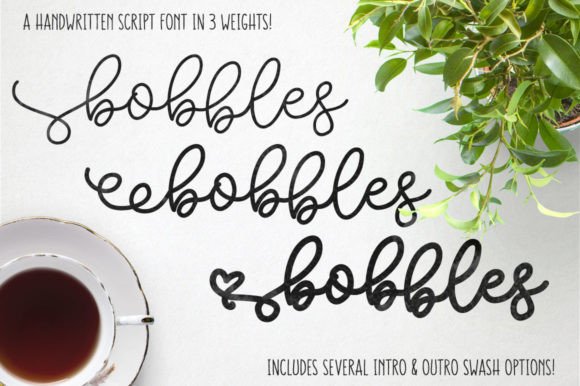
The Bobbles Font: A Beautiful Handwritten Script for Your Creative Projects
As a designer, I’m always on the lookout for the perfect font to bring my projects to life. Recently, I found myself working on a whimsical craft project, searching for a font that would add a touch of playfulness and elegance. That’s when I stumbled upon Bobbles, a lovely handwritten script font family that instantly captured my heart.
It’s Bobbles, a handwritten script font family with three weights! (It made me think of both bubbles and baubles, thus the name!) Bobbles is a monoweight script font handy for 1,001 projects. Each of the three weights (Light, Regular, and Bold) includes almost 200 accented and special characters, as well as 15 double-lowercase ligatures and eight intro and outro swashes that are easy to insert — just type one of the eight bracket keys on your keyboard!
• A-Z, a-z, 0-9, and full punctuation (except for brackets) in each weight
• 190 accented and special characters for multiple language support
• 15 double-lowercase letter ligatures
• Beautiful, flowing script that adds elegance to any project ✅
• Three weights (Light, Regular, and Bold) for versatility 📈
• Extensive character set, including accented characters and ligatures 🌎
• Easy-to-use swashes and intro/outro flourishes 🎨
• Some users might find the font a bit too ornate for very small text sizes ⚠️
• Limited use of brackets, as they are reserved for swashes and ligatures 📝
Although the creator of Bobbles remains a mystery, it’s easy to imagine the design process behind this beautiful font. Perhaps the designer was inspired by the whimsy of childhood, with memories of blowing bubbles and admiring baubles. Or maybe they sought to create a font that would evoke a sense of elegance and sophistication, with a touch of playfulness.